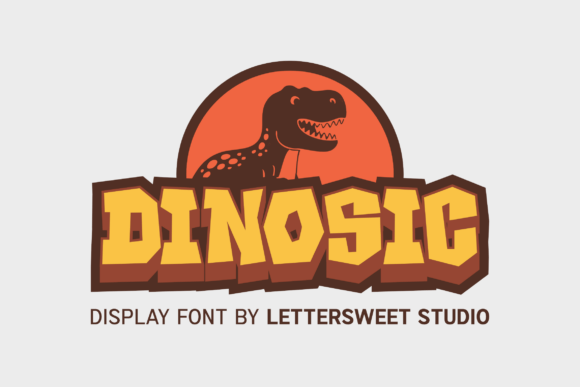
Dinosic: Bringing Playful Energy to Modern Design
In a crowded digital landscape, grabbing and holding attention is the primary challenge for any visual project. The right typography can be the decisive factor that makes a design feel energetic, memorable, and perfectly aligned with its message. DINOSIC emerges as a powerful tool in this arena, offering a bold and playful display font that injects immediate personality and visual impact into creative work.
Understanding the Power of a Distinctive Typeface
DINOSIC is more than just a set of letters; it's a character-driven typeface inspired by the wild energy of dinosaurs and adventure themes. Its chunky shapes, strong outlines, and fun personality are engineered to command attention instantly. This makes it an invaluable asset for projects that need to communicate loudness, fun, and a sense of unforgettable excitement. In modern graphic design, such a distinctive typeface serves as a cornerstone for effective visual communication, helping to establish a unique brand identity and improve user engagement.
Practical Applications Across Creative Projects
The true value of a creative asset like DINOSIC lies in its versatility and practical application. Its bold, eye-catching letterforms and playful style make it exceptionally suited for a range of projects where energy and memorability are key.
- Branding and Logo Design: For brands targeting a younger audience or those in the entertainment, toy, or food industries, DINOSIC can form the core of a vibrant logo, setting a joyful and approachable tone from the first glance.
- Marketing and Social Media Content: In the fast-scrolling environment of social media, its strong readability and unique character ensure that thumbnails, banners, and ad graphics stand out, driving higher click-through rates and engagement.
- Packaging and Merchandise: On physical products, from children's snacks to video game packaging, this font enhances shelf appeal and communicates product personality effectively, contributing to a cohesive and attractive design.
- Editorial and Web Design: While primarily a display font, DINOSIC can be used strategically in headlines, pull quotes, or section titles within magazines, blogs, or website hero sections to create dynamic visual hierarchy and break monotony.
Integrating Bold Typography into Your Design Workflow
When selecting a typeface like DINOSIC, it's crucial to consider its role within the broader design system. Its effectiveness is maximized when paired thoughtfully with more neutral, readable fonts for body text, ensuring a balanced visual hierarchy. Always evaluate its scalability—DINOSIC's strong outlines maintain clarity even at large sizes, making it ideal for posters and banners. Consider your audience's expectations and your design goals; this font excels in contexts where fun, adventure, and high energy are desired emotions.
Remember that typography is one element in a larger visual language. To achieve a polished, professional result, harmonize DINOSIC with a complementary color palette, supportive imagery, and clean composition. Its personality should amplify, not overwhelm, your core message. For designers, marketers, and creators, having a resource like DINOSIC in your toolkit expands your creative possibilities, allowing you to tackle projects that require a bold, playful, and instantly recognizable visual style.
Ultimately, thoughtful design choices are about matching form to function. Investing in high-quality, purpose-driven creative assets ensures that your projects not only look aesthetically pleasing but also communicate with clarity and impact, enhancing the overall user experience and achieving your strategic objectives.